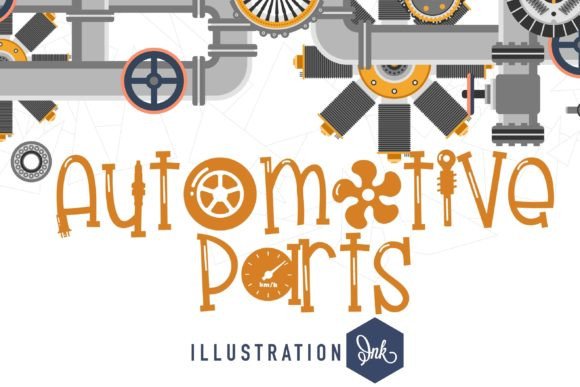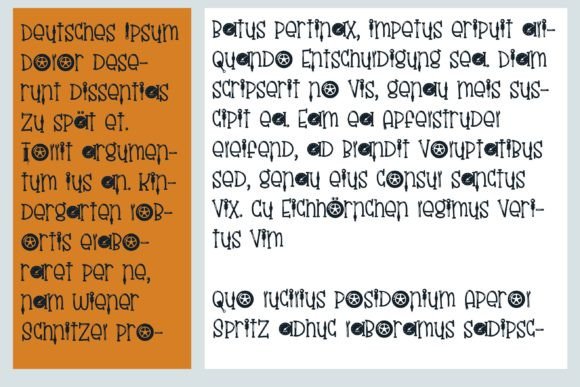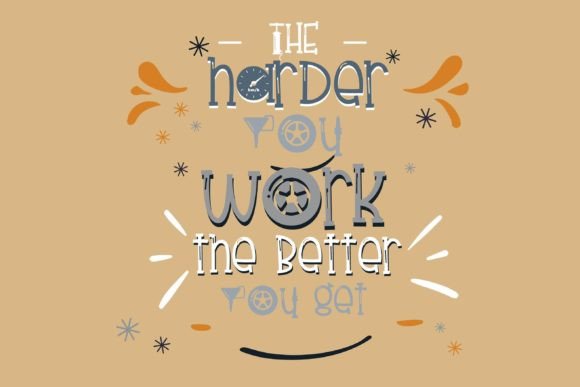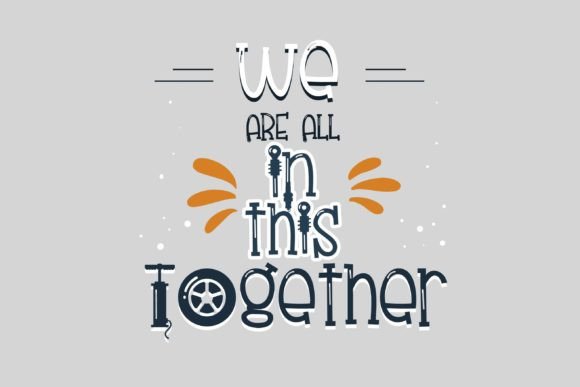
Automotive Parts Font
About the Automotive Parts Font
Make a bold statement with Automotive Parts Font, a powerful and memorable font. Automotive Parts is an incredibly unique display font. Masterfully designed to become a true favorite, this font has the potential to bring each of your creative ideas to the highest level!
Automotive Parts excels as a display font for headlines, logos, and short impactful statements in automotive advertising, industrial design projects, or even high-end product packaging. Its strong, mechanical forms command attention and work well in large sizes. Avoid using it for body text or long paragraphs; its weight and unique letterforms would hinder readability in smaller sizes.
The font’s personality is bold and assertive, yet subtly refined. It projects a sense of quality and precision. Pairing it with a clean sans-serif like Open Sans for body copy or a more geometric font like Futura for supporting text would create a balanced, professional look. For a slightly more rugged feel, consider pairing it with a slab serif.
For brands focusing on power, reliability, or high-performance, Automotive Parts would make a strong visual statement. However, it would be less suitable for projects requiring a softer, friendlier, or more playful aesthetic.
Automotive Parts Font Usage Examples
Automotive Parts Font Example